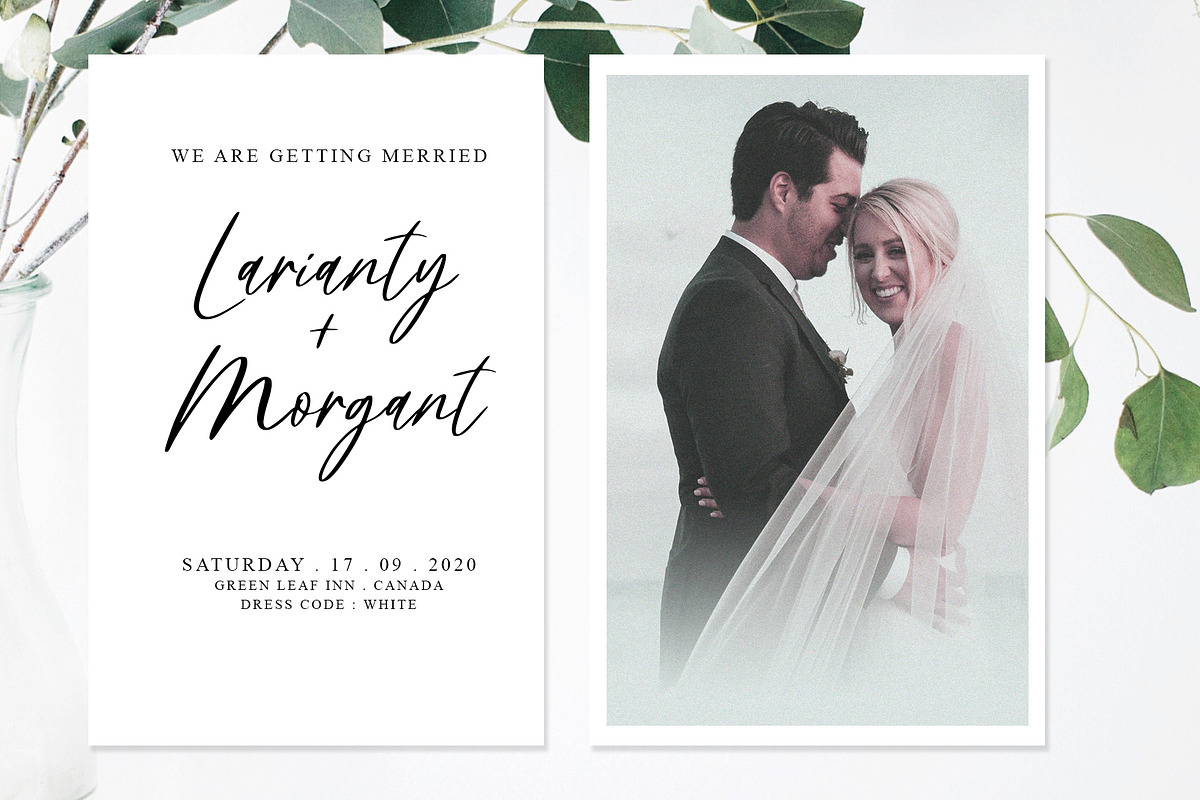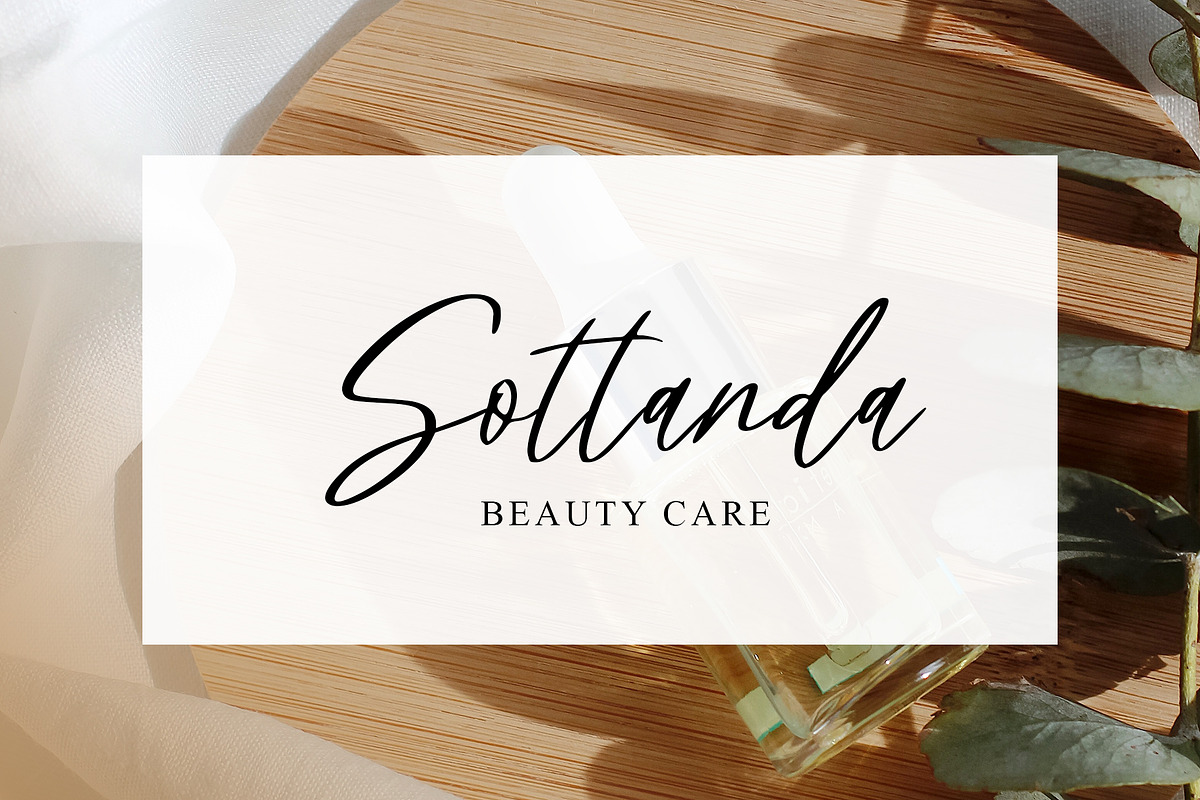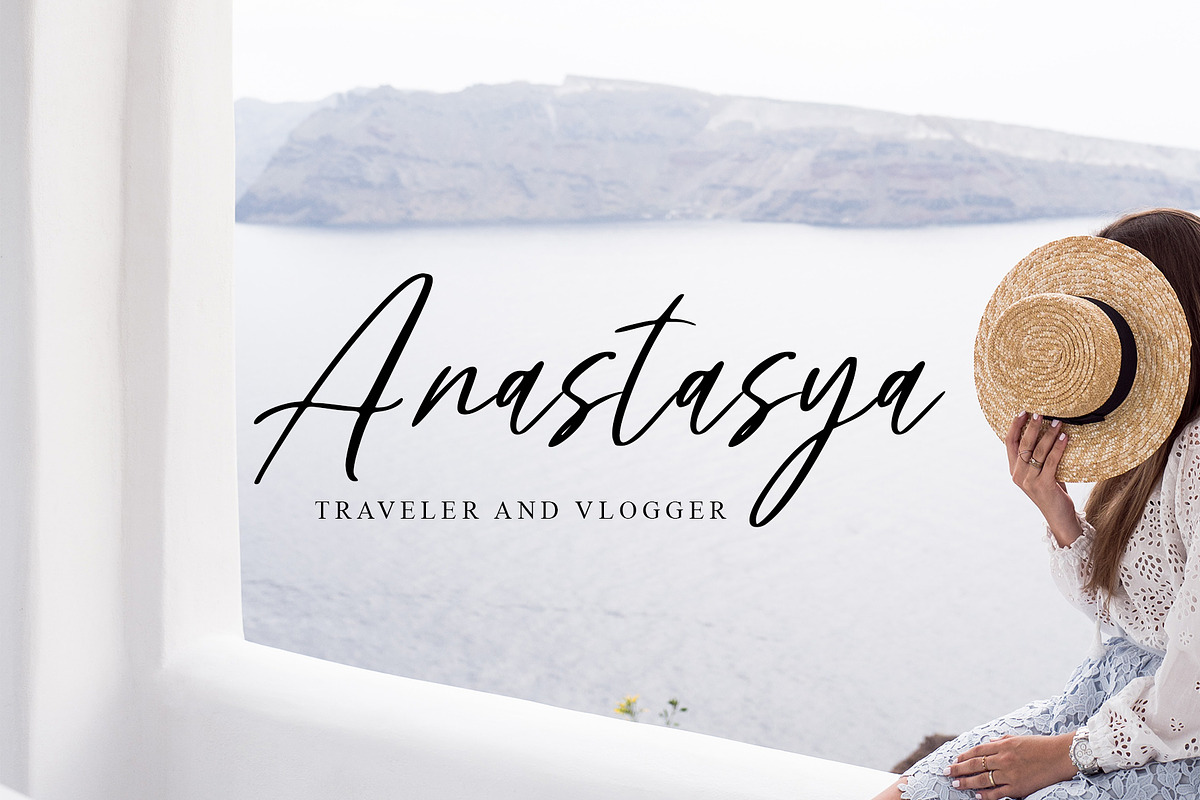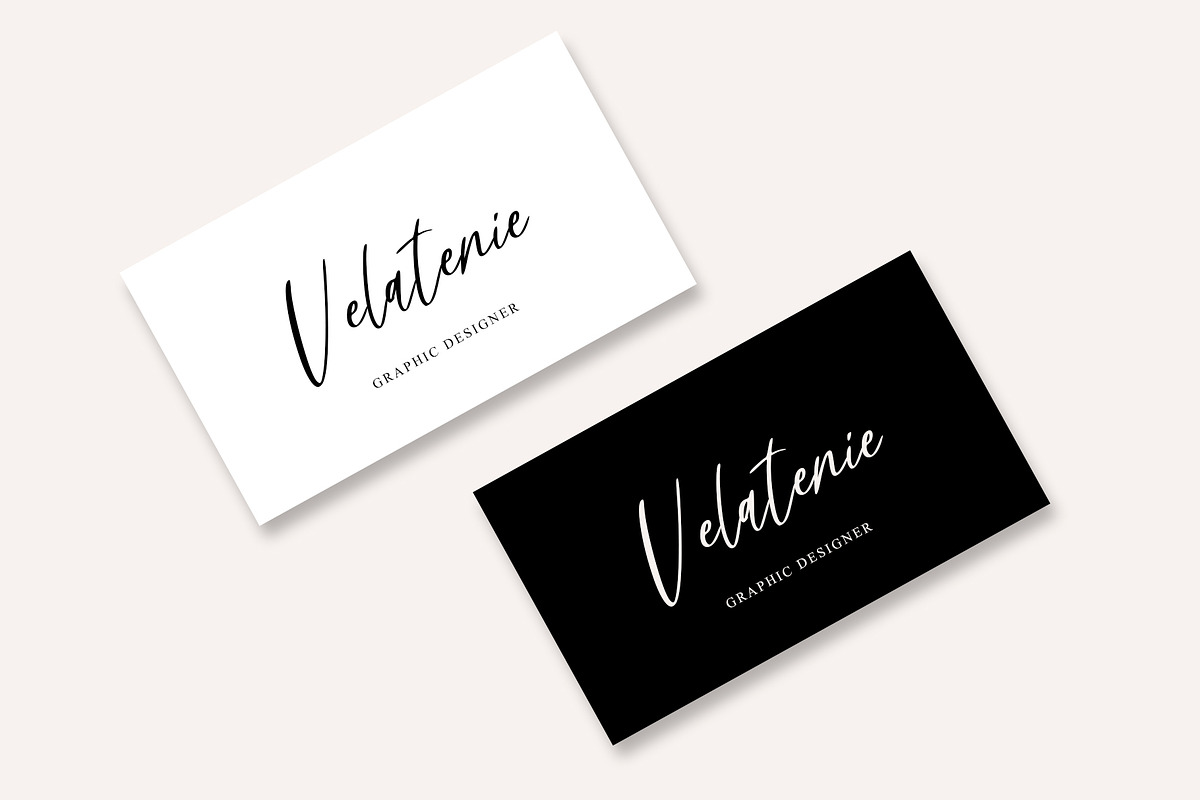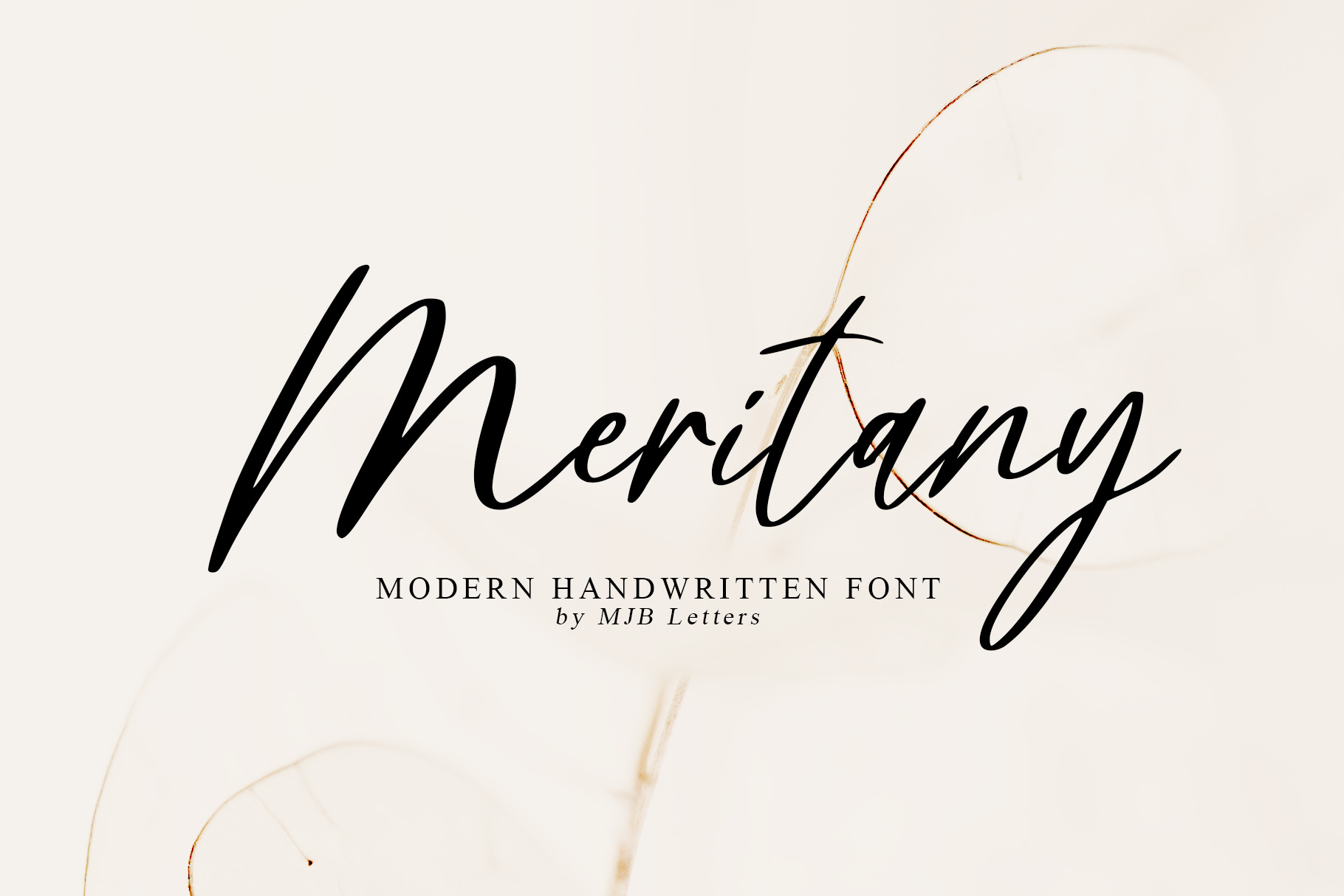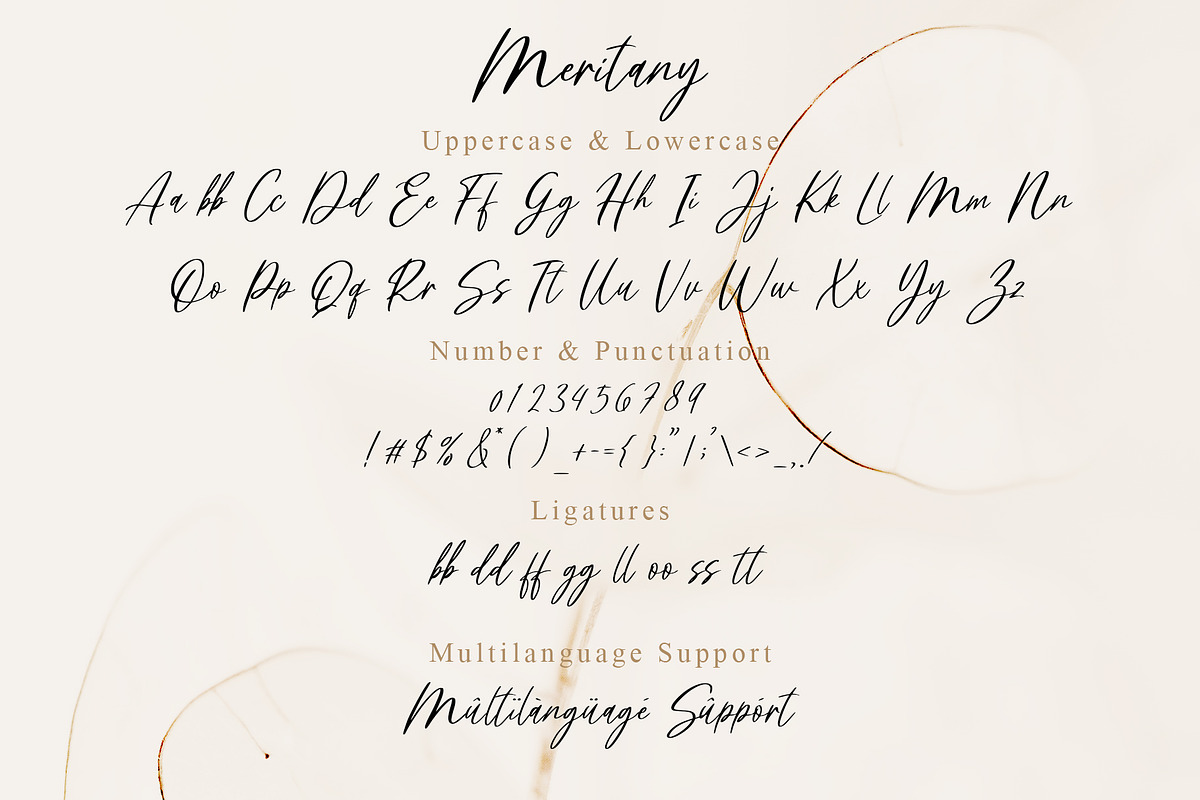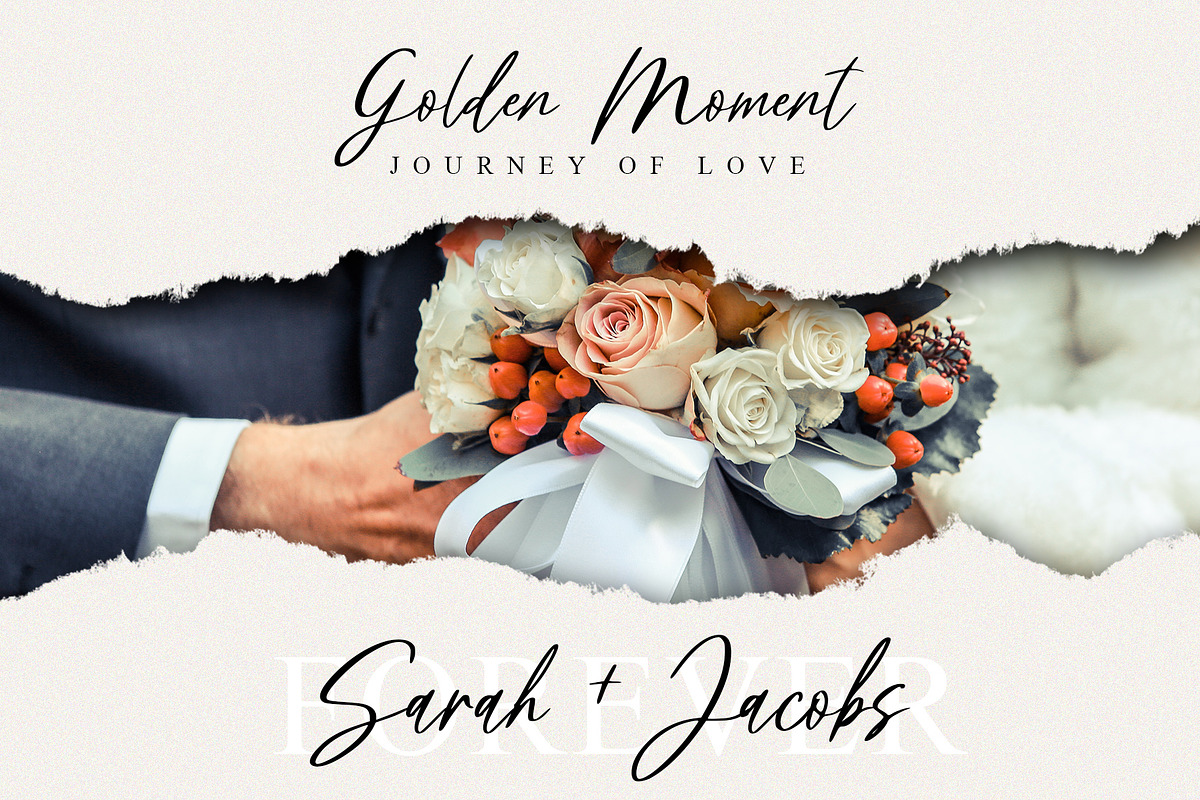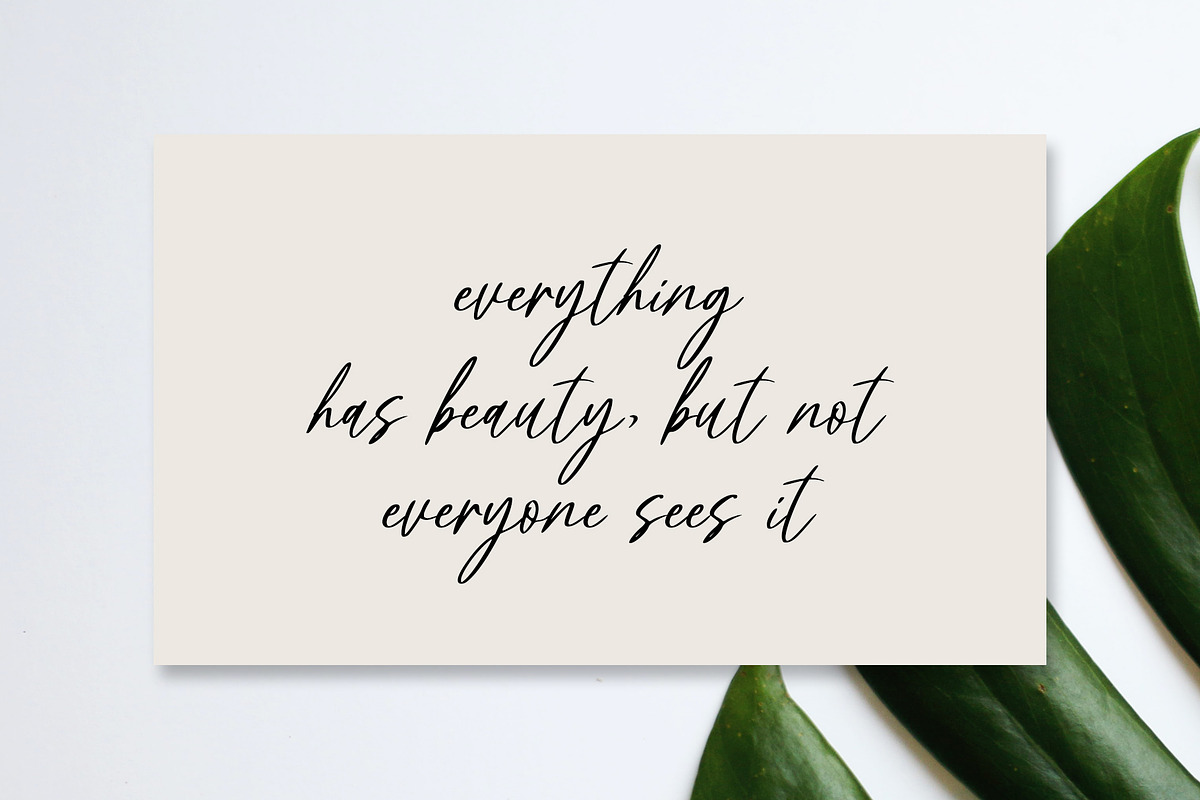
Meritany - Modern Handwritten Font
Introducing Meritany - Modern Handwritten Font
Meritany is a modern handwritten font that has unique characters on each letter, this font is carefully crafted to give a natural feel and touch to the font and this font is perfect for wedding design, wedding invitations, logo design, logotype, branding design, branding material, social media posts, posters, stationery, packaging design, business cards and more.
Meritany comes with a full set of uppercase and lowercase letters, multilingual symbols, ligatures, numerals, punctuation.